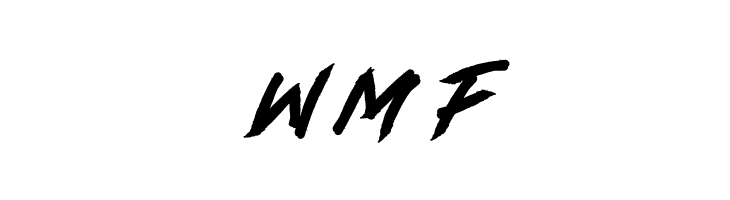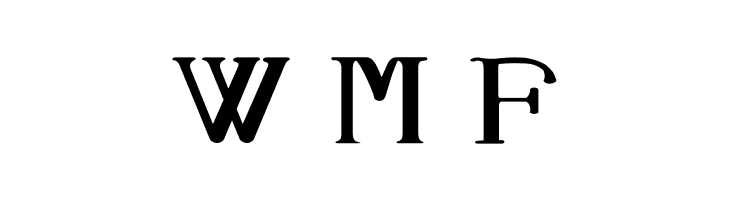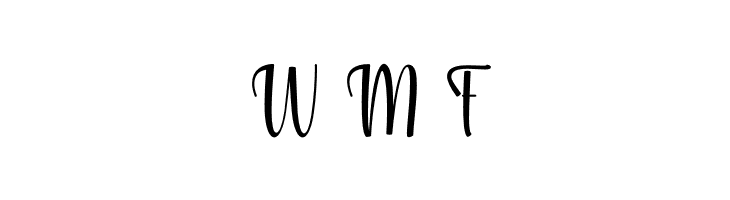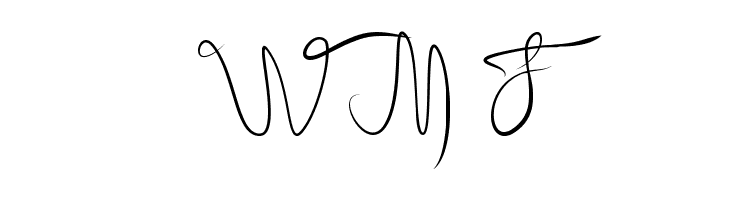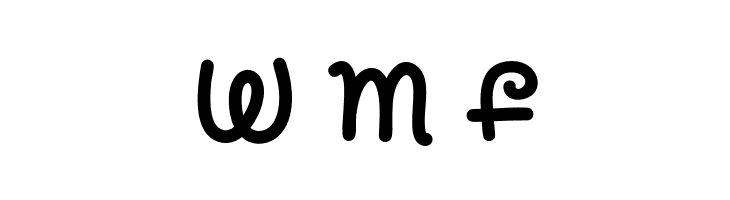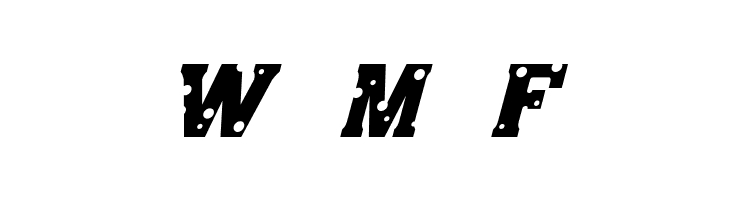
A bold, decorative font with unique cut-out patterns and high contrast.
A bold, decorative font with a vintage flair and intricate flourishes.
A bold, decorative font with ornate serifs and vintage flair.
A playful, bold font with rounded, bubbly characters and a whimsical style.
A playful, handwritten cursive font with a smooth and flowing style.
A whimsical and elegant script font with flowing curves and playful loops.
A classic serif font with modern elegance and medium contrast.
A dynamic and elegant italic font with smooth, flowing letterforms.
A bold, dynamic script font with brush-like strokes and a handwritten style.
An elegant, flowing script font with smooth, continuous strokes.